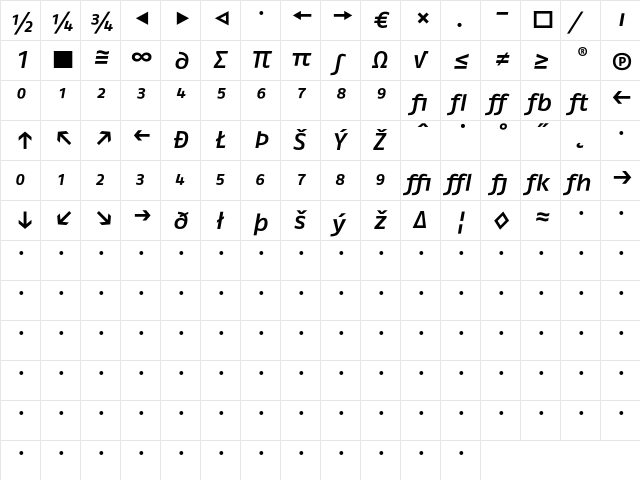
FagoEx MediumItalicExp Font Preview
FagoEx MediumItalicExp
FagoEx MediumItalicExp Font Details
Design Context for FagoEx Typeface
FagoEx is a composed and adaptable typeface that performs quietly and consistently across a wide range of design contexts. The dynamic lean of this cut emphasises speed and emphasis in any layout.
Pro Tip: Try FagoEx for annotation and caption copy alongside an upright companion — the contrast in angle creates a dynamic but ordered typographic system.